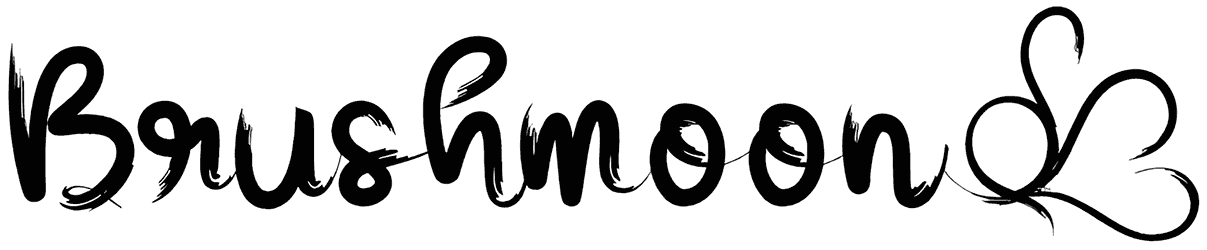
Brushmoon Font
Brushmoon captures the energy and exhilaration of writing by hand while imbuing each character with a unique flair. With fluid lines and dynamic shapes, this brush font can elevate any design project from ordinary to extraordinary.
Whether used for headings or body text, it adds artistic sophistication to any piece of writing. The beauty of this script font lies in its flaws, and it makes you feel alive and full of personality.